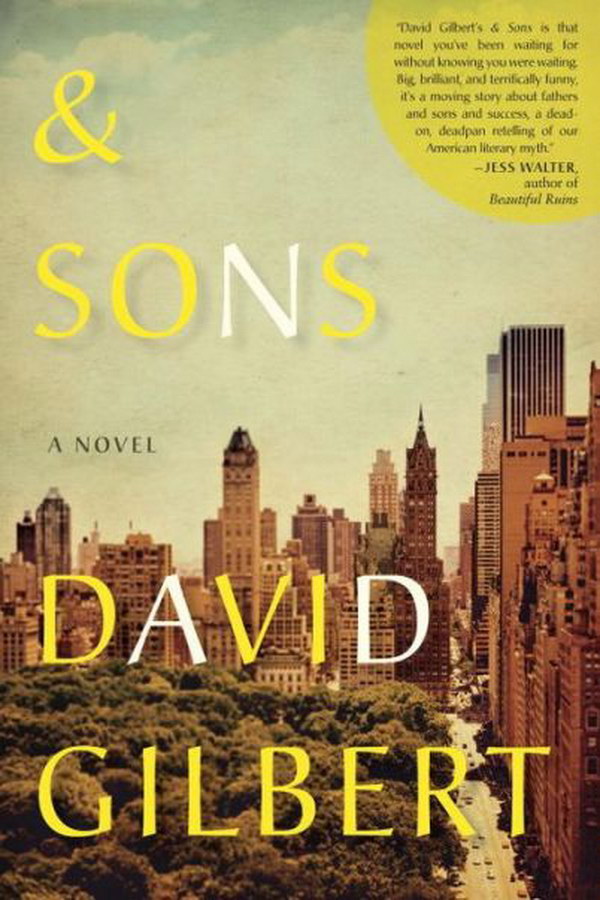
And Sons Font
Book& Sons is a novel by David Gilbert about a reclusive and famous author, A.N. Dyer, who is reconnecting with his sons while grappling with his legacy and mortality.
The cover of the book "& Sons" features the Christiana BQ Regular font, designed by Gudrun Zapf von Hesse for Berthold in 1991. There are a variety of stroke weights and angled endings in this font. You can find more information about it here.